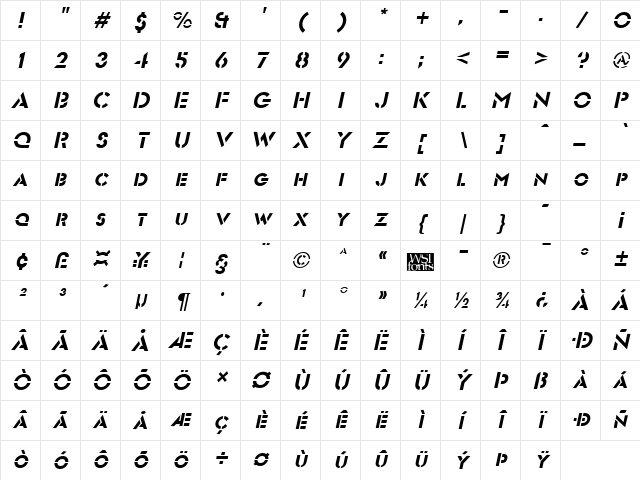
Complete FuturistStencil Italic glyph index. Displaying only characters natively supported by FuturistStencil Italic font.
FuturistStencil has a distinctly futuristic character, with geometric precision and clean angles that feel at home in technology, gaming, and sci-fi contexts. The slanted form adds forward momentum and visual energy.